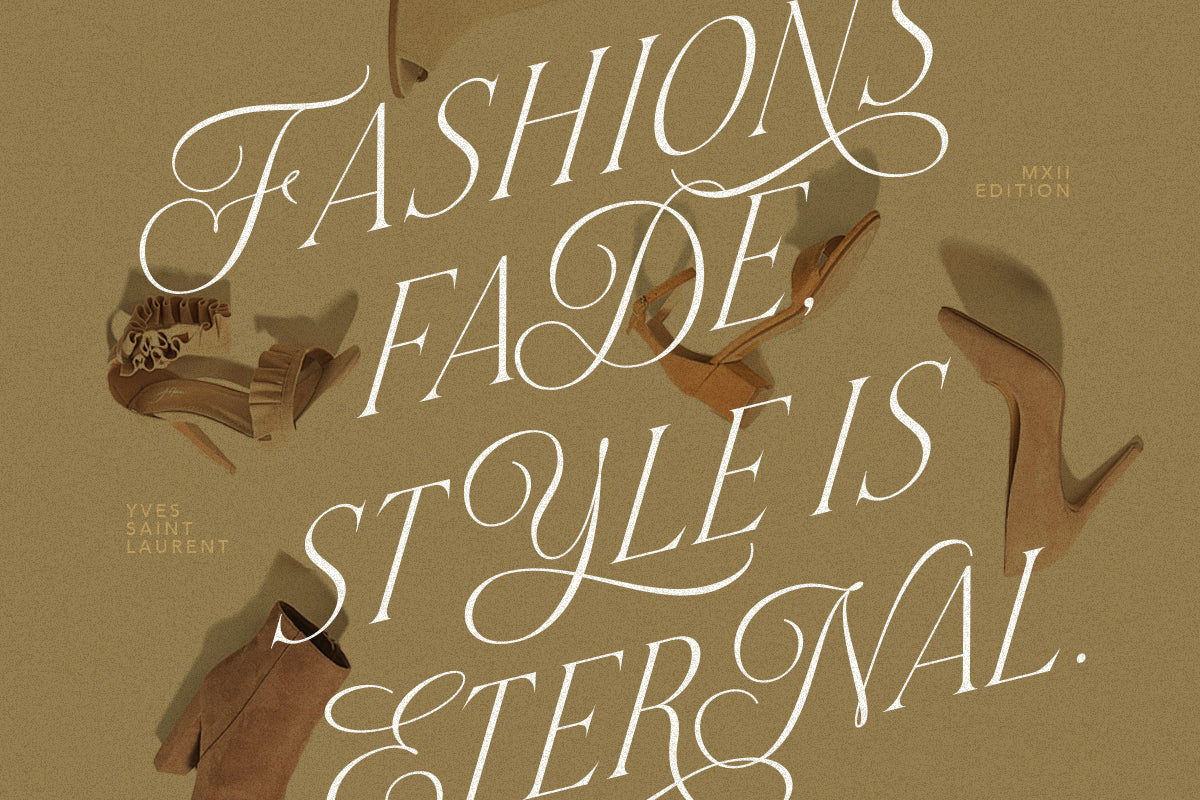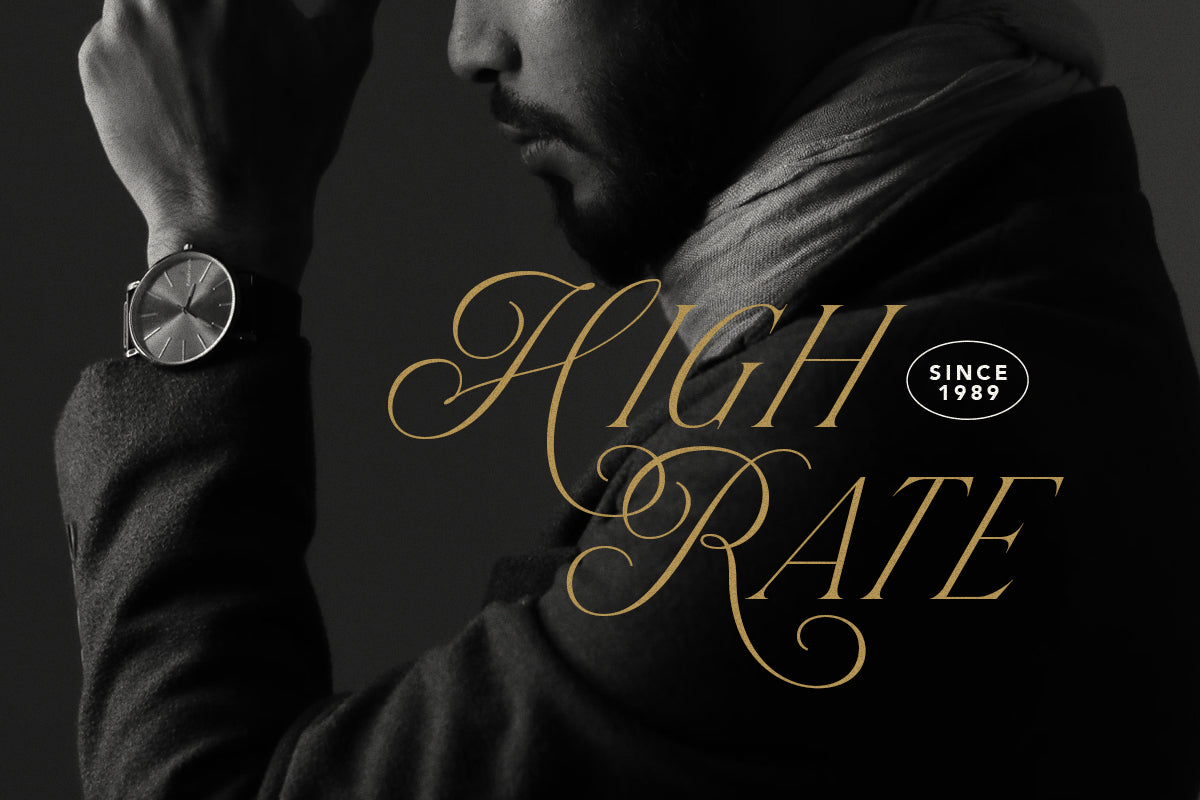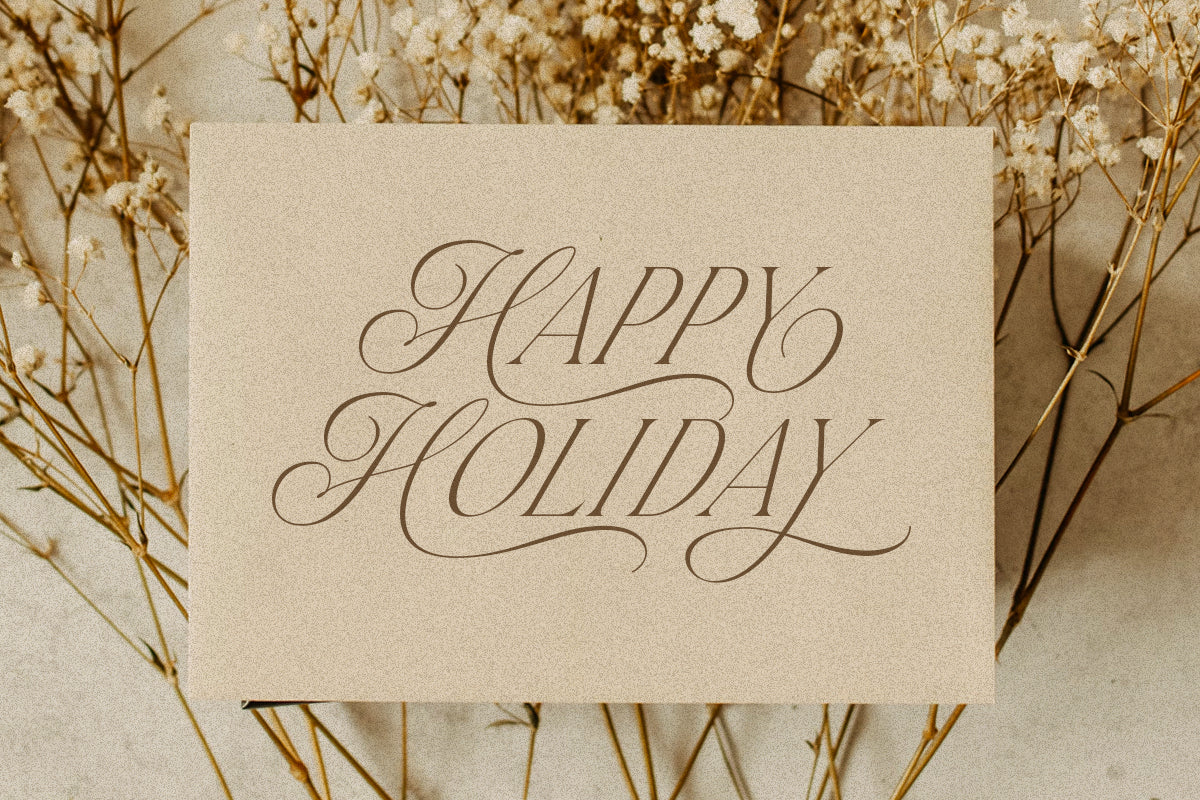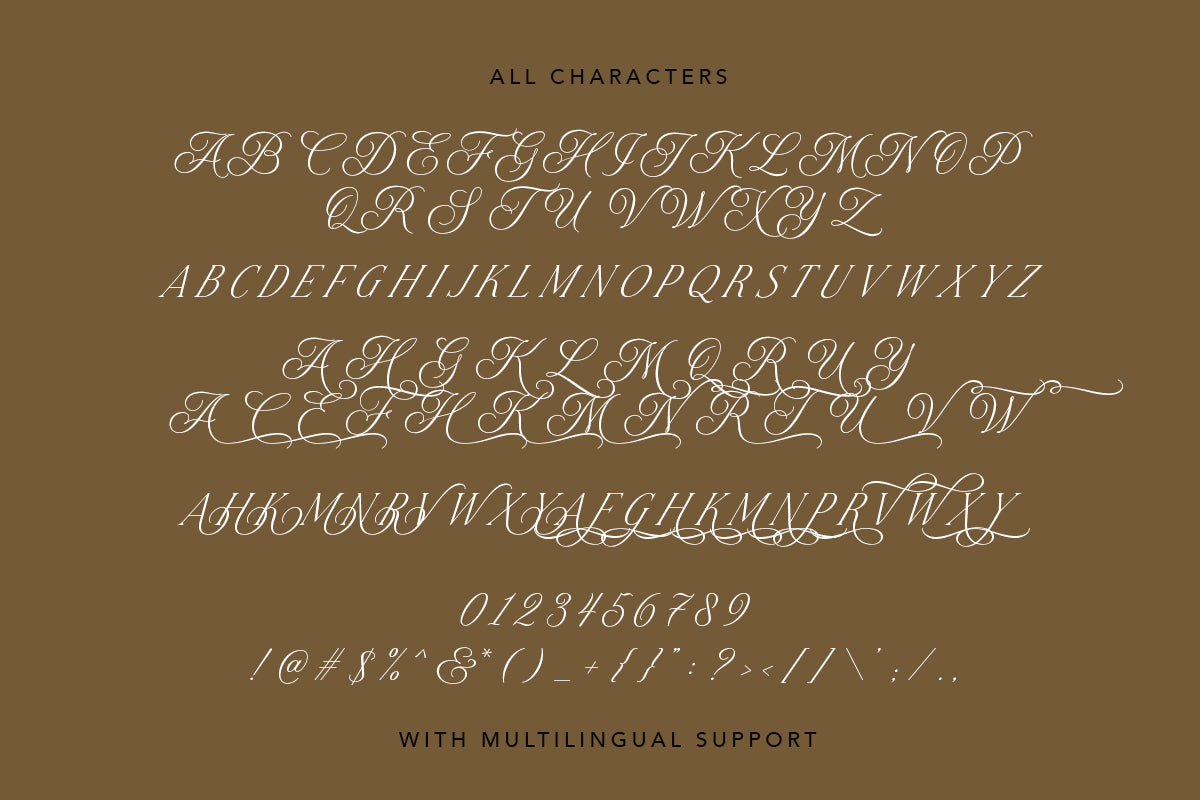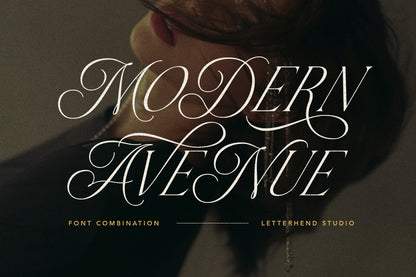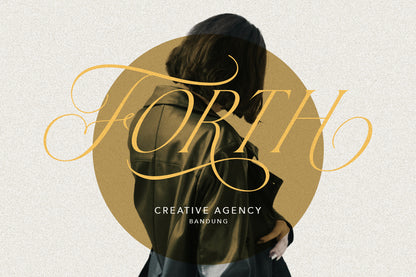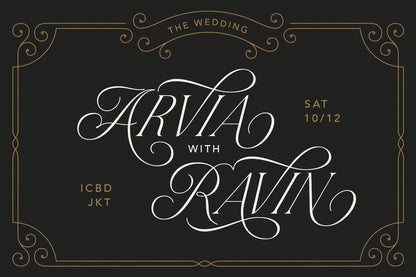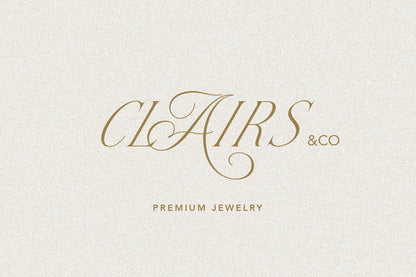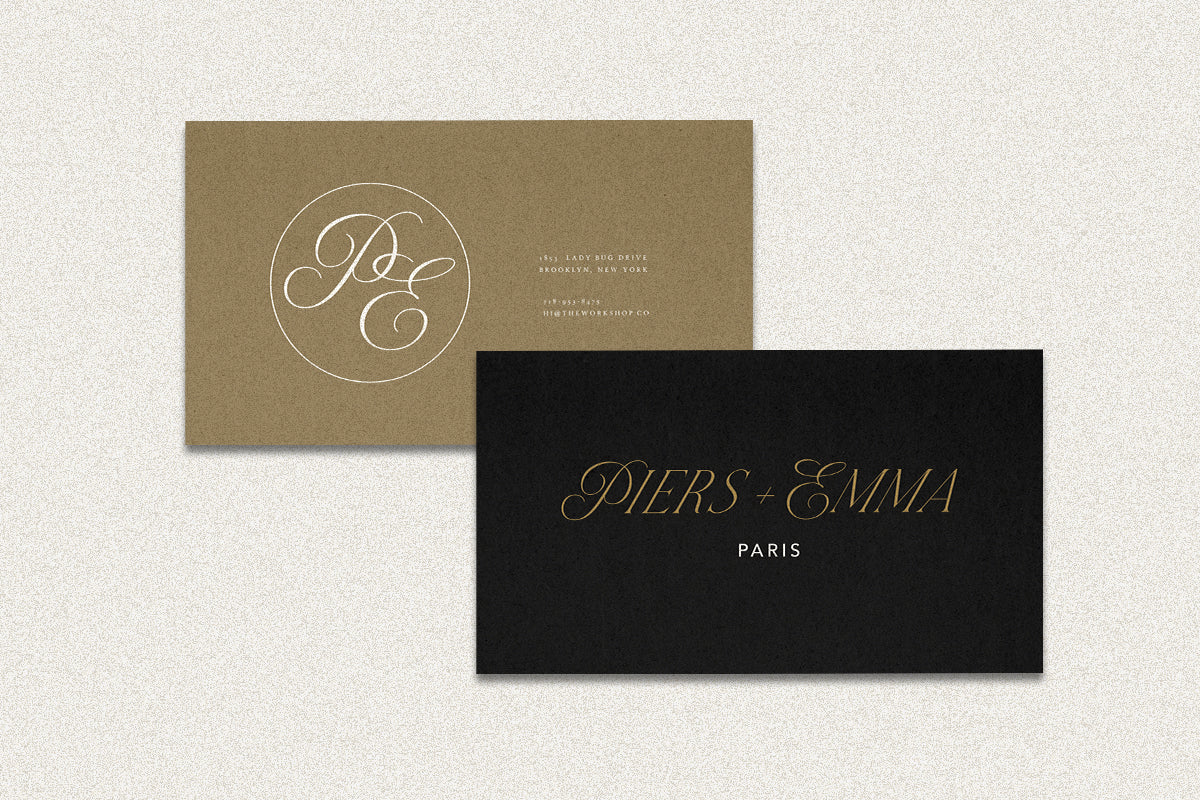
Modern Avenue is an elegant and contemporary font that blends a serif with a classic script style. Its numerous alternate characters, including swashes, add beauty and versatility, making it perfect for a wide range of designs. The font’s refined and sophisticated appearance makes it ideal for high-end projects such as luxury branding, packaging, and various formal applications, including invitations, labels, logos, magazines, books, greeting or wedding cards, fashion, makeup, stationery, novels, and advertising materials. With its perfect balance of modern and classic design, Modern Avenue offers a timeless and graceful touch to any project.
Features:
Uppercase; lowercase
Numbers and punctuation
Alternates; Ligatures
Multilingual